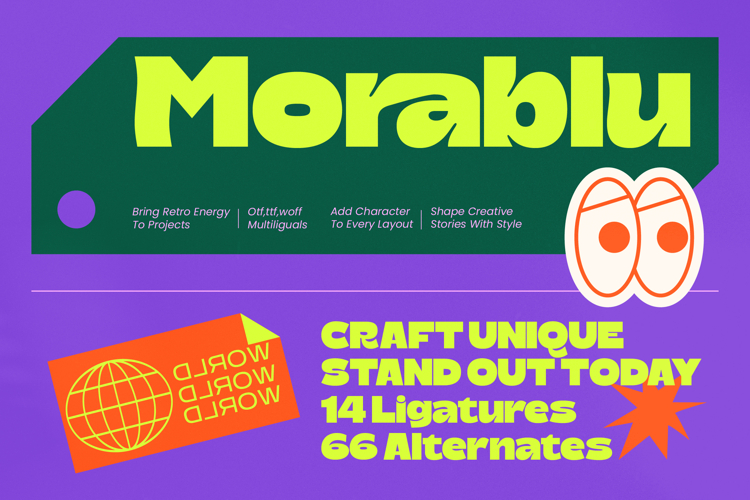
Morablu Groovy Display Font
Morablu – Groovy Display Font is perfect for luxury branding, packaging design, and cutting-edge editorial layouts that require a premium feel. Beyond high-end aesthetics, it is also highly effective for social media graphics, music festival posters, and streetwear apparel, providing a bold headline solution that commands the viewer's gaze instantly.
Transform ordinary layouts into extraordinary brand experiences with a font that bridges the gap between nostalgia and innovation. Morablu – Groovy Display Font offers professional-grade quality and a retro-modern fusion that ensures your work remains timeless yet contemporary. Secure this high-contrast typeface today to give your portfolio the visual impact and competitive edge it deserves in a crowded marketplace.